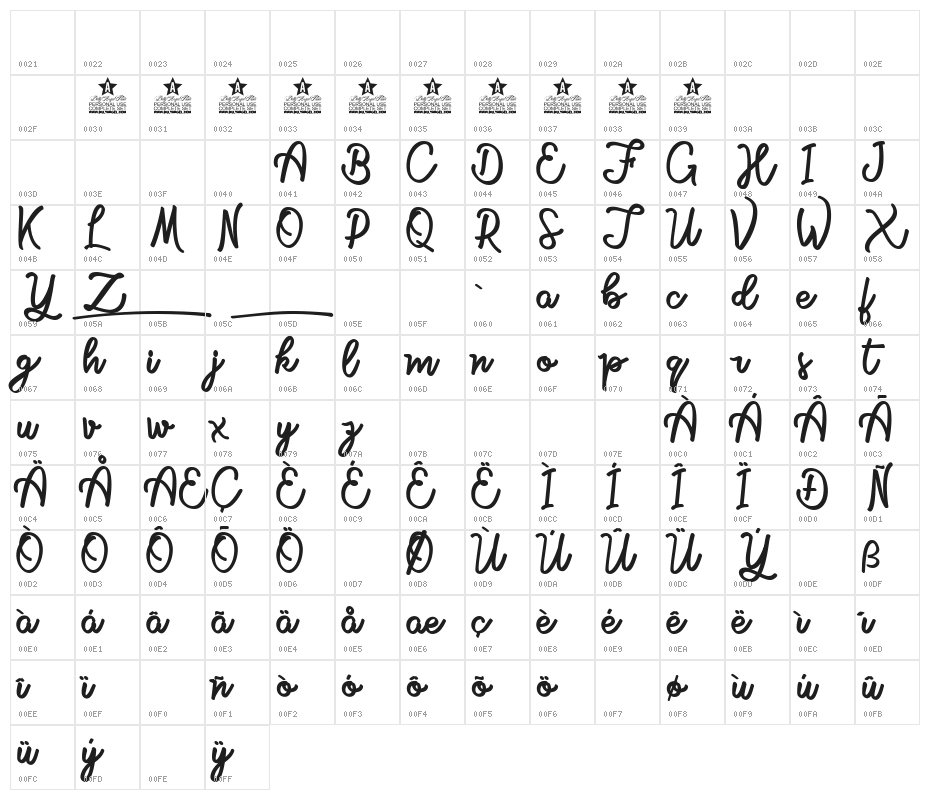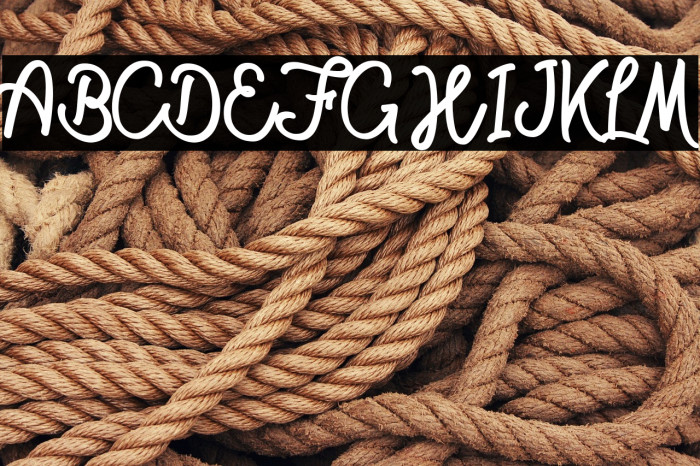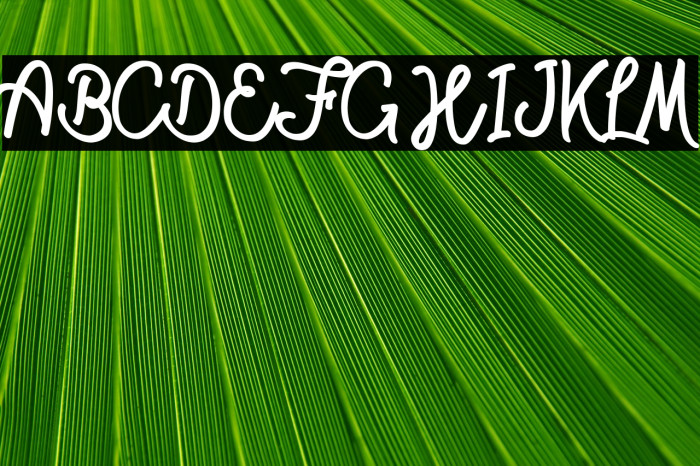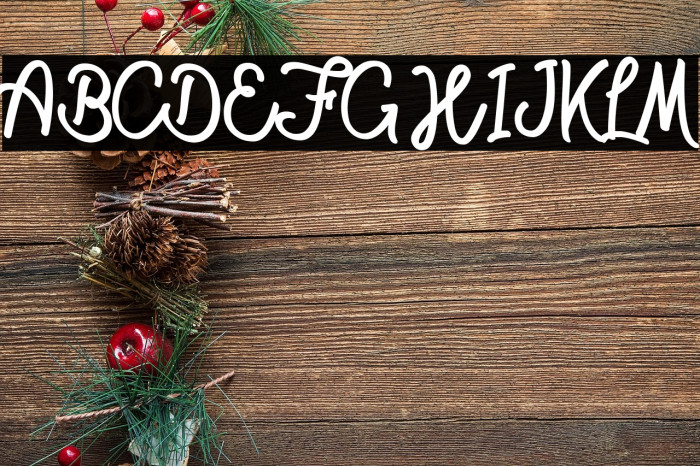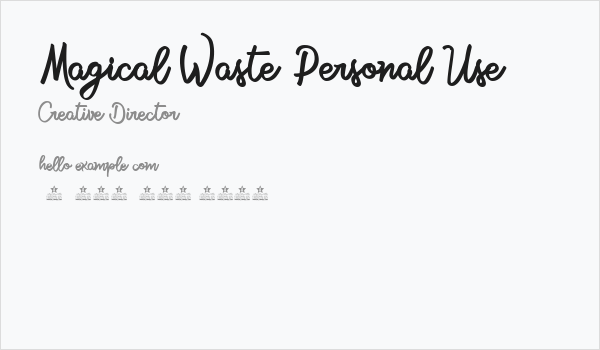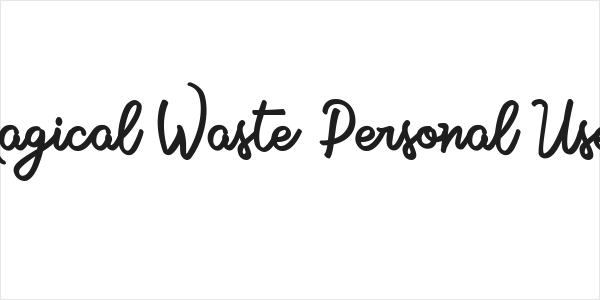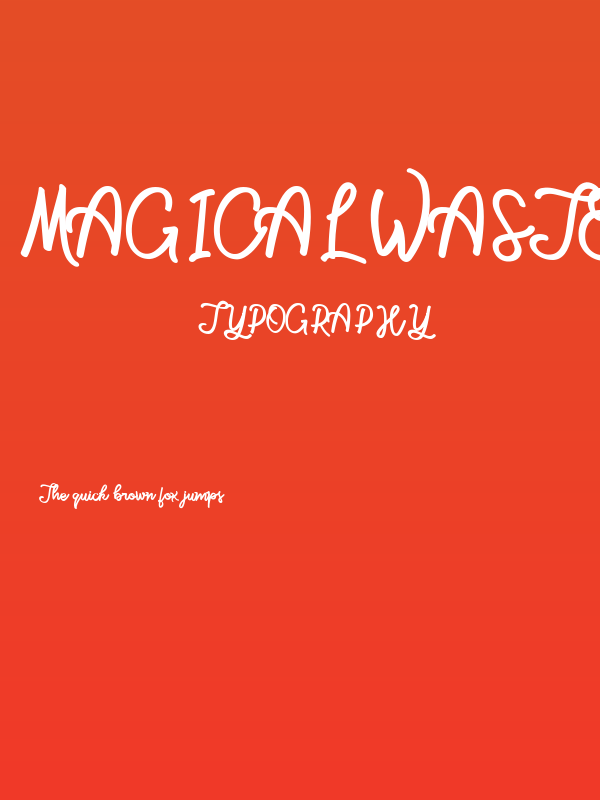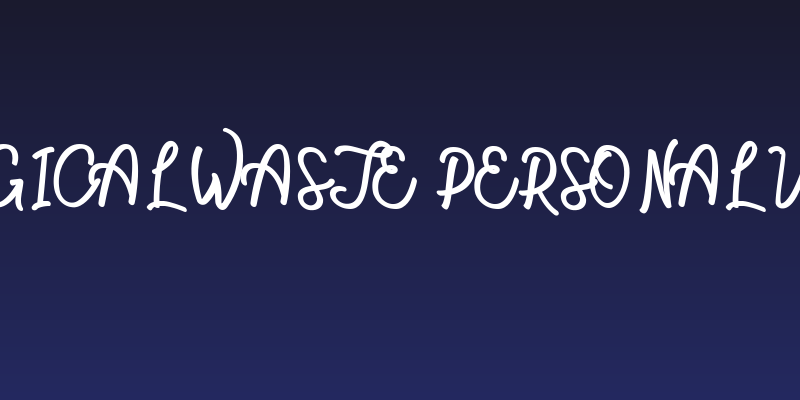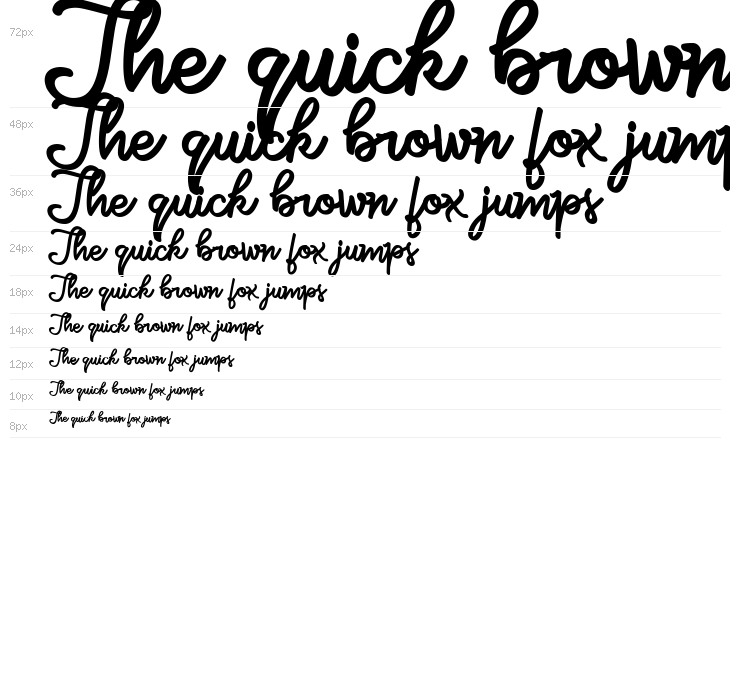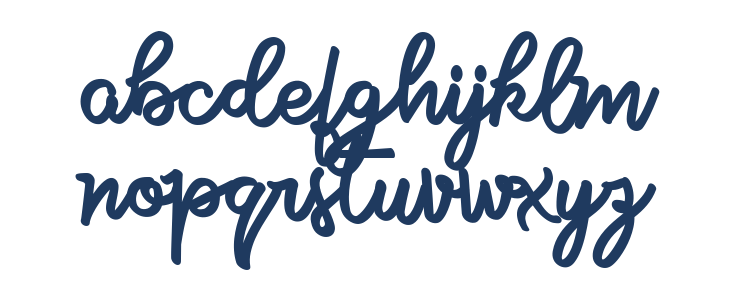
Magical Waste Personal Use Font
Magical Waste Personal Use Description
This font features a playful and whimsical script style with fluid, interconnected strokes that give it a handwritten appearance. The uppercase letters are bold and expressive, while the lowercase letters maintain a consistent flow, enhancing the font's overall charm. The characters are slightly slanted, adding to the dynamic and lively feel. The numbers and special characters are designed to match the playful aesthetic, making this font suitable for creative and informal projects. Its unique style is perfect for capturing attention and conveying a sense of fun and creativity.
| Proposed Projects | Ideal for greeting cards, invitations, playful branding, and creative posters. |